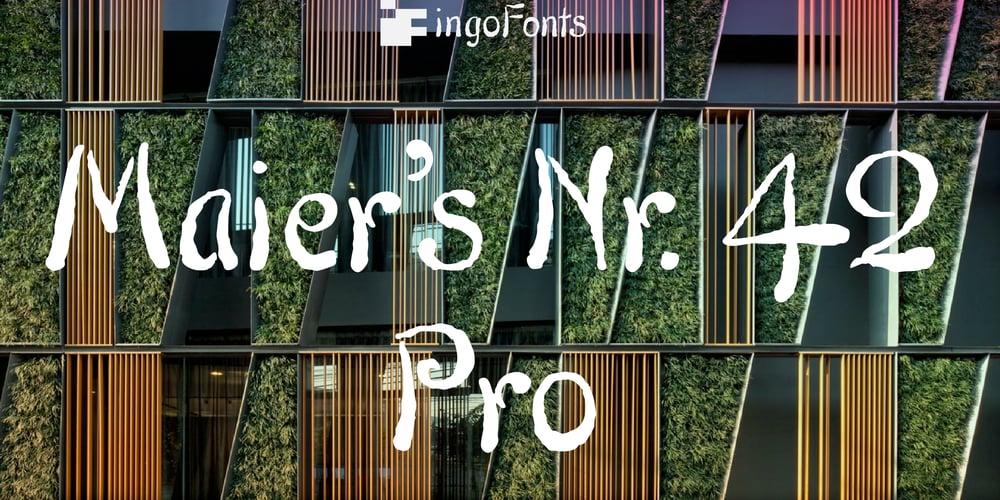
Maiers Nr 42 Pro Font Family was designed by Ingo Zimmermann and published by Ingo. Maiers Nr 42 Pro contains 1 styles and family package options. A handwritten decorative font with brush characteristicsThis attractive decorative script is found in a pamphlet of script samples from around 1900 which was issued by Otto Maier publishing house in Ravensburg/Germany. The forms and flow of Maier’s Nr. 42 are obviously influenced by Art Nouveau.In the original sample, only the Latin alphabet appears. All other characters, especially the Greek and Cyrillic letters, were modeled on elements of the original.A typeface can first reveal a true “handmade” character when the letter forms do not continually repeat themselves – a completely normal occurrence with handwriting. Thanks to OpenType, some key letters of Maier’s Nr. 42 appear in various alternative forms depending on the combination of letters. For example, the difference is obvious between an e followed by i and an e followed by l. Using this principle, a number of letter combinations are presented with alternative character forms so that overall a very lively impression is created.